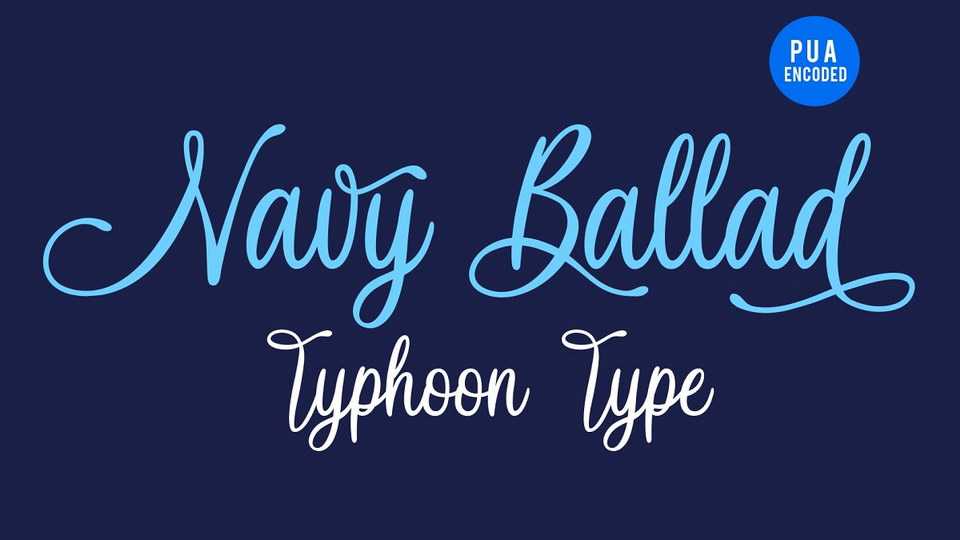
Download Navy Ballad font, a beautiful handwritten script with a soft and smooth flow. Navy Ballad font is perfect for logos, name tag, advertising, product packaging, clothing, social media & greeting cards.
Designer: TyphoonType